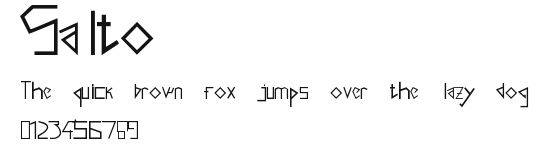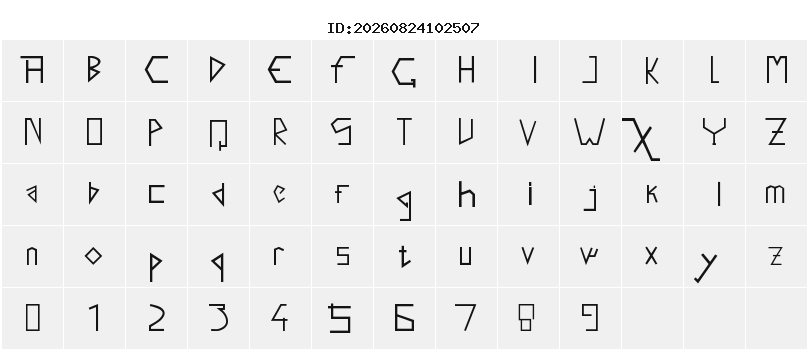
Salto Preview
About Salto.ttf
Salto.ttf is a modern, elegant sans-serif font designed for ultimate readability and visual harmony. Perfect for branding, headlines, web design, and print materials.